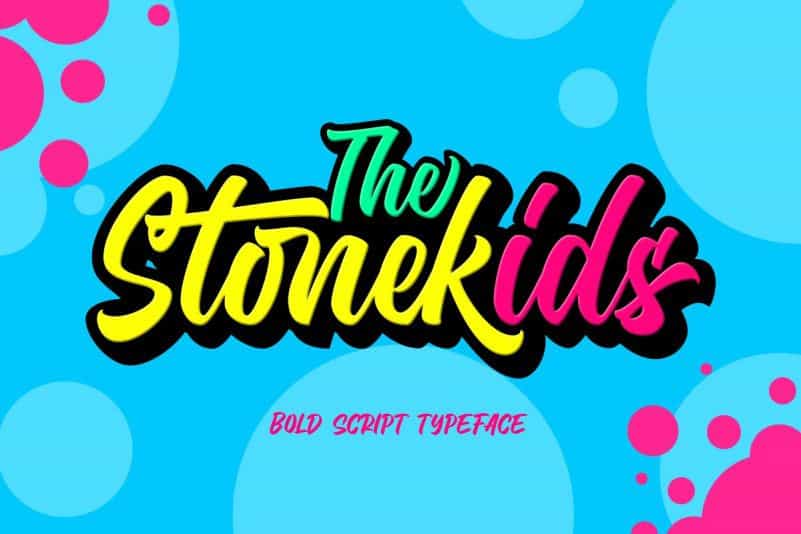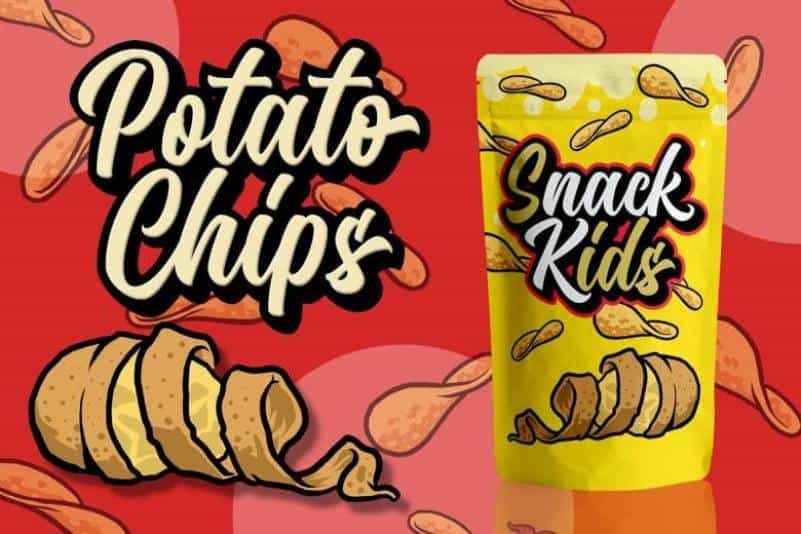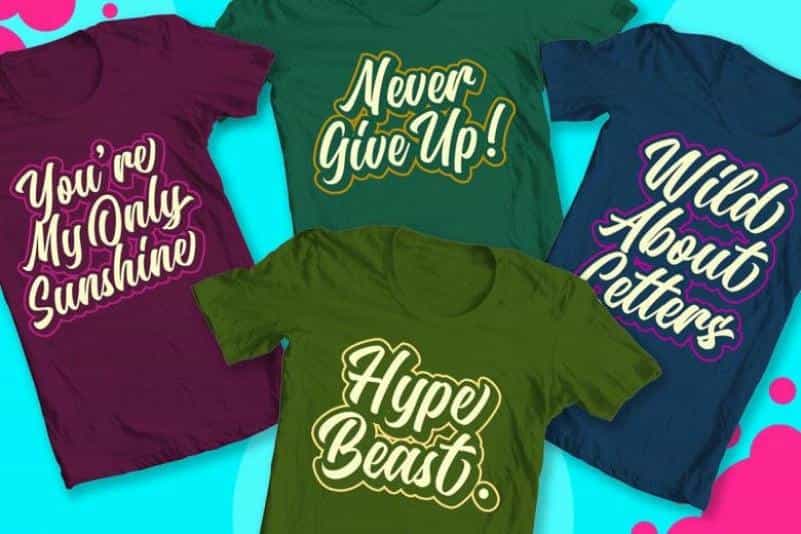
Discover Stonekids Bold Script Font, part of the Brush Calligraphy collection—a versatile and unique font perfect for adding a personal touch to your projects. Download it for free and enjoy crafting designs with style, from invitations to social media posts. This font is available exclusively for personal use, giving you the freedom to create without limits. Unlock your creativity with Stonekids Bold Script Font today!
Discover Stonekids Script, by Blankids Studio – a layered script font that brings a dimension to your designs. Stonekids was influenced by hand lettering, script logos and childrens fonts. It offers type features. Supports multiple languages making it suitable, for logos, posters, badges, book covers, t shirt designs, packaging and more.